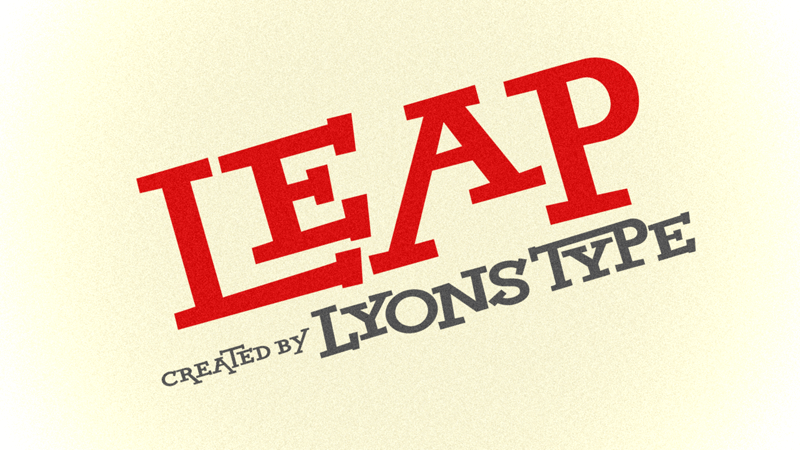
Font name: | LT Leap |
Author: | LyonsType |
Note by LyonsType | |
"Leap" is a refined revival of the old Yahoo! logotype from the 1990s. The inclusions in this font from the original Yahoo! logo font are as follows: Lowercases, ligatures, discretionary ligatures, and stylistic alternates. All LyonsType fonts are freely available to download at: https://lyonstype.wixsite.com/home/typefaces For any inquiries, please contact me at lyonstype@gmail.com |